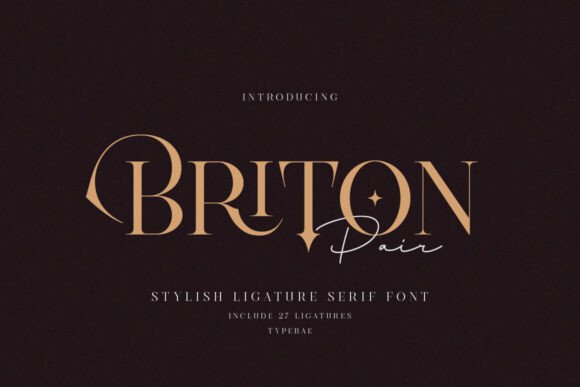
The Elegant Choice: A Deep Dive into the Briton Pair Font
I’ll never forget the struggle I faced while working on a luxury branding project for a high-end fashion client. The brief was clear: create a sophisticated, elegant visual identity that exudes refinement and style. But, as I scoured the font libraries, I found myself stuck. That was until I stumbled upon the Briton Pair font. With its luxurious touch and elegant serif design, it was love at first sight! ✨ In this article, I’ll share my experience with this beautiful font, its features, and how to make the most of it in your designs.
• ✨ Elegant serif design with a luxurious touch, perfect for high-end projects
• ✅ 27 ligatures for smooth, stylish connections that elevate your typography
• 📈 Refined details and modern flourishes that add a touch of sophistication
• 💻 OpenType features that allow for creative experimentation and customization
While the Briton Pair font is exceptional, there are a few things to keep in mind: ⚠️
• 🤔 Glyphs and ligatures can be overwhelming for beginners; take some time to explore the font’s capabilities
• ⚠️ Legibility at small sizes may be a concern; test the font at various sizes to ensure it works for your project
The Briton Pair font was designed with inspiration from classic serif fonts and a modern twist. The designer aimed to create a font that exudes elegance and sophistication, perfect for high-end projects. With its refined details and luxurious touch, Briton Pair is sure to elevate your typography.
Q: What is the Briton Pair font best suited for?
A: The Briton Pair font is ideal for high-end branding, editorial design, luxury packaging, and any project that requires an elegant, sophisticated touch.
Q: Is the Briton Pair font suitable for body text?
A: While the Briton Pair font is elegant and refined, it may not be the best choice for body text due to its luxurious, high-end feel. Consider using it for headlines, titles, or other display text.